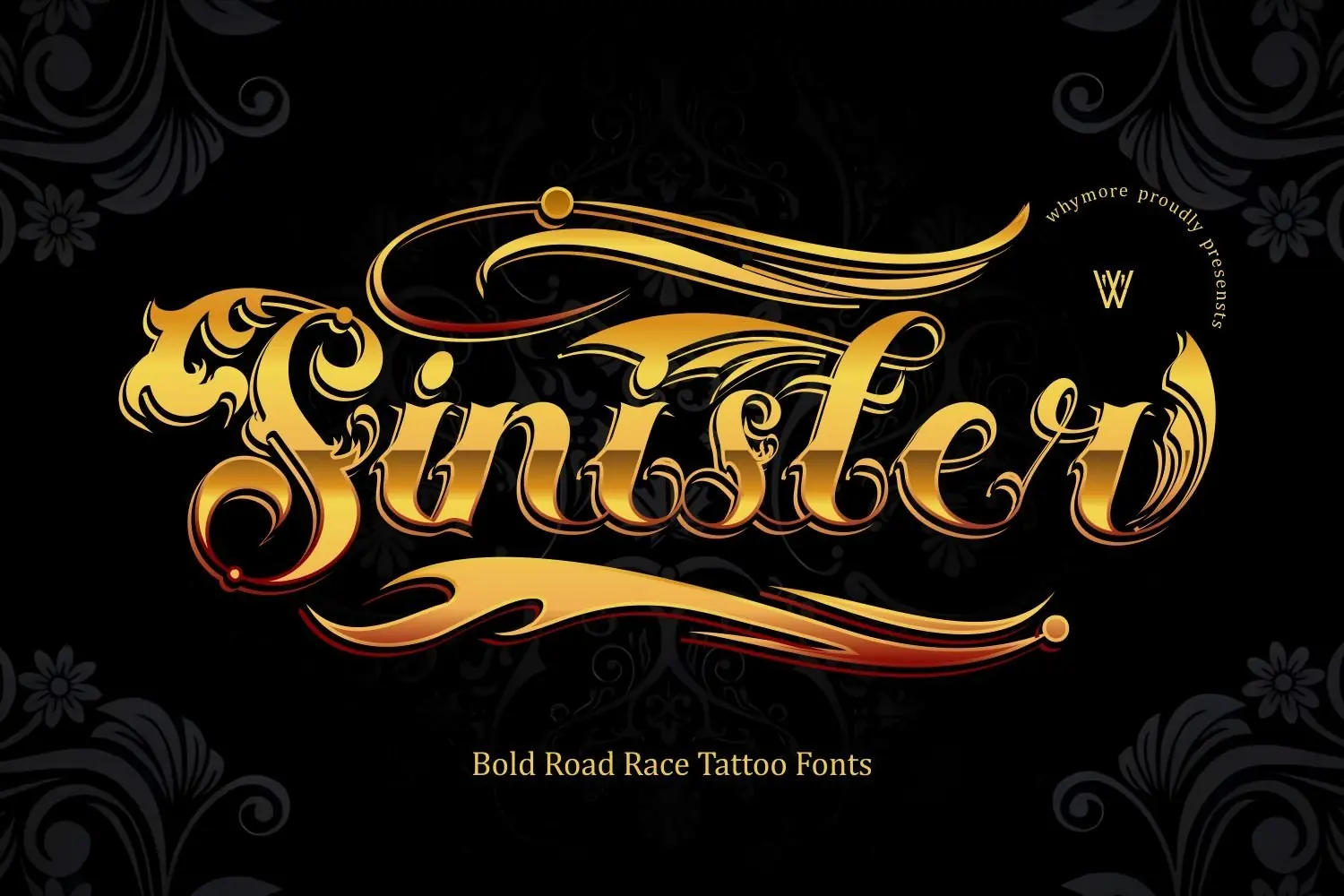
Sinister Ornamental Tattoo Script Font
Sinister is a bold and expressive ornamental script font inspired by classic tattoo lettering, vintage sign painting, and custom motorcycle culture. Featuring dramatic curves, decorative details, and flowing swashes, Sinister brings a distinctive handcrafted character to your lettering and design projects.
Designed to create strong visual impact, its expressive letterforms work beautifully for logos, custom lettering, tattoo-inspired artwork, apparel graphics, automotive branding, posters, and other designs that need a bold vintage attitude.
The combination of ornate details and extended swashes allows you to turn simple words into striking decorative compositions while maintaining a strong and recognizable lettering style.
Sinister is made for designers looking for bold ornamental lettering with a vintage tattoo-inspired character and plenty of decorative personality.